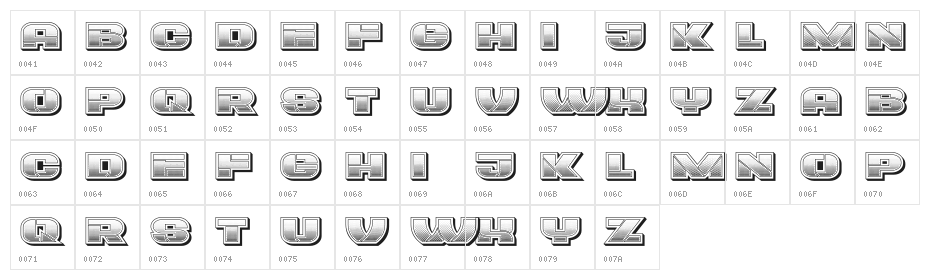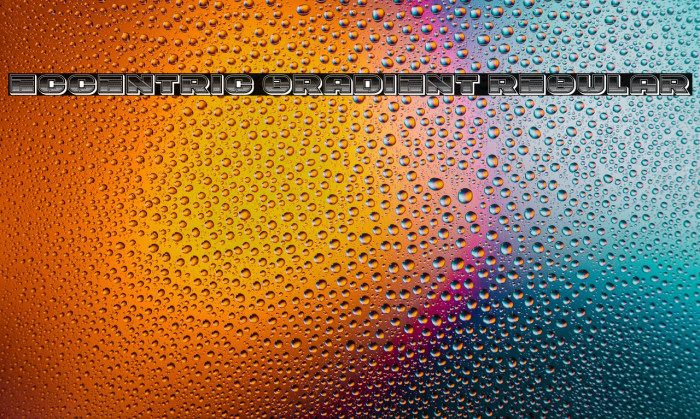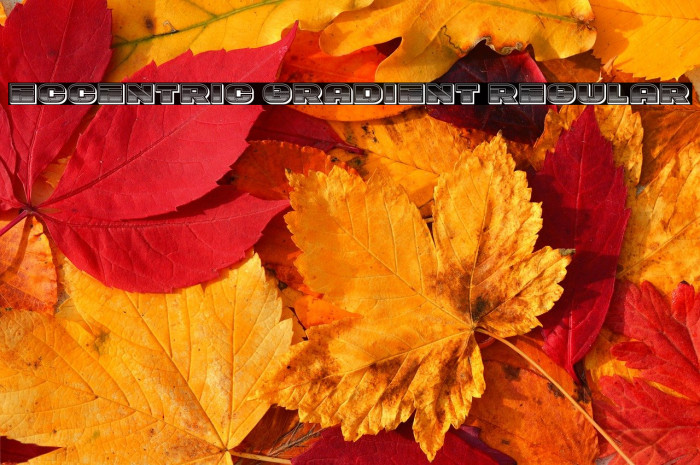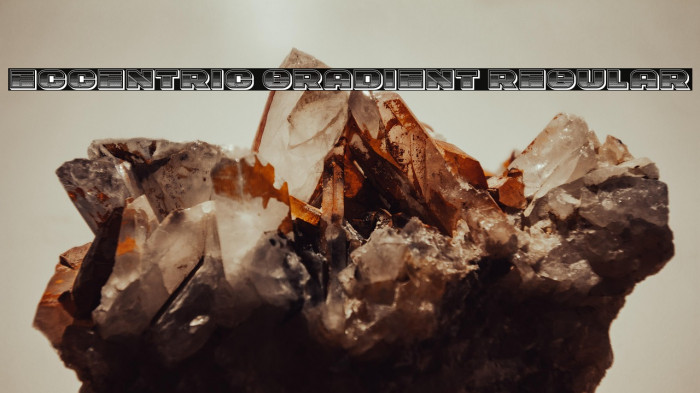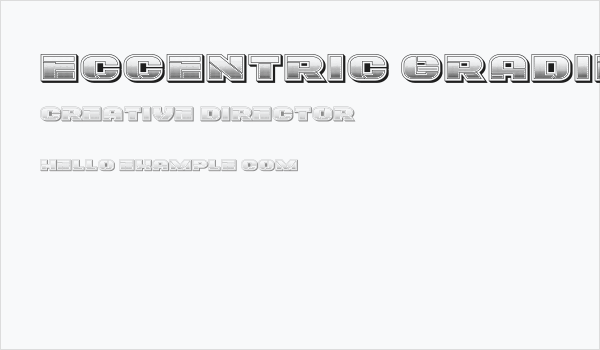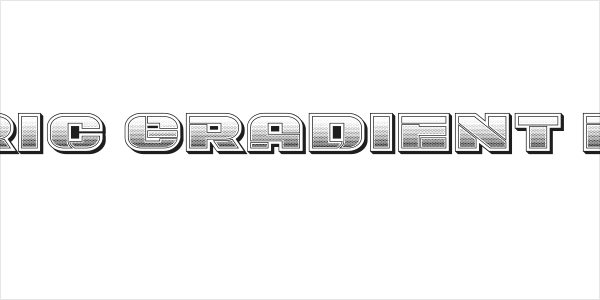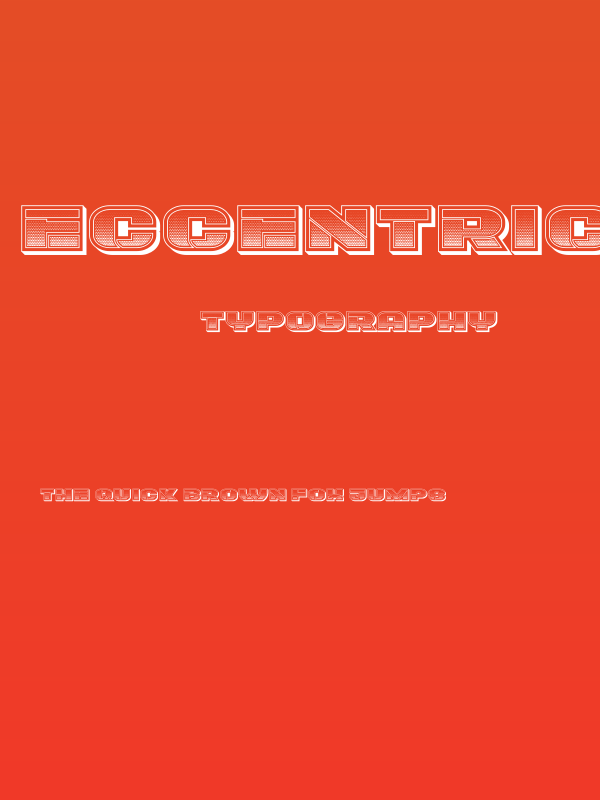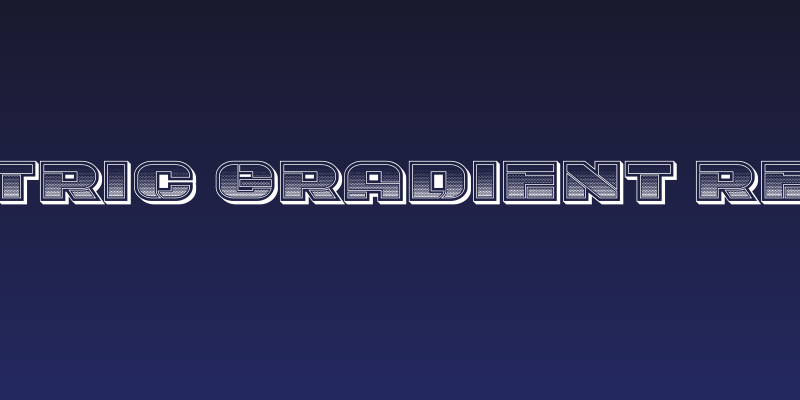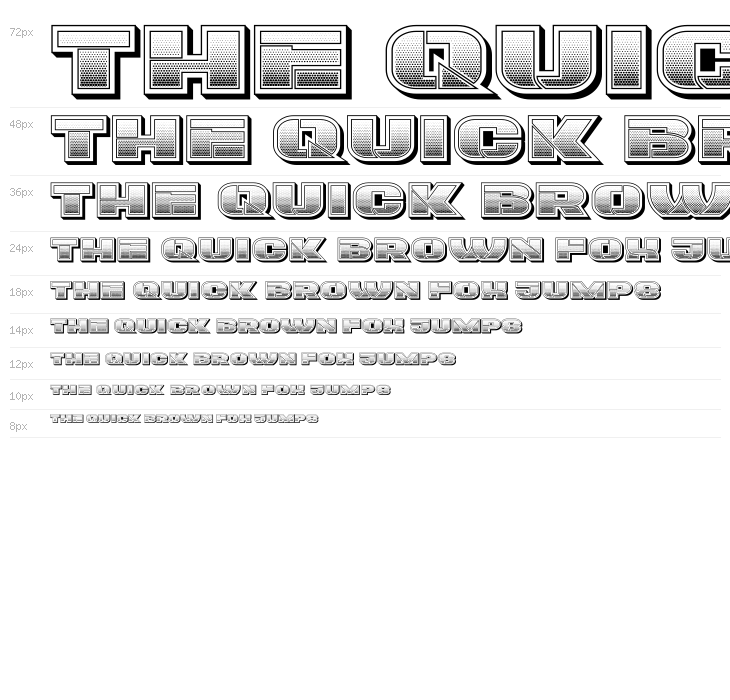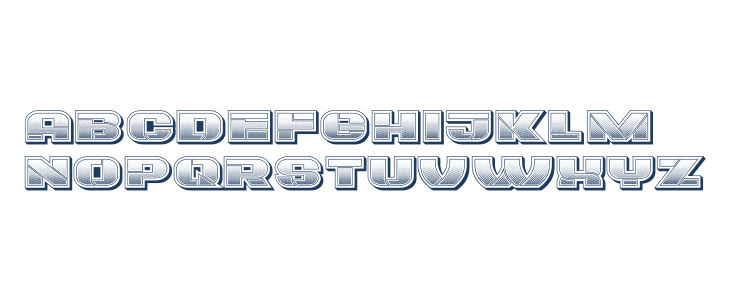
Eccentric Gradient Regular Font
Eccentric Gradient Regular Description
This font features a bold, decorative style with a unique gradient effect within each character. The letters are uppercase and have a three-dimensional appearance, achieved through intricate shading and line work. The design is reminiscent of vintage signage or retro poster art, making it stand out with its artistic flair. Each character is enclosed in a thick outline, enhancing the boldness and visibility of the text. The font's playful yet structured design makes it suitable for creative and eye-catching projects.
Overall StyleVintage
Proposed ProjectsIdeal for retro-themed posters, vintage signage, creative branding, and eye-catching headlines.